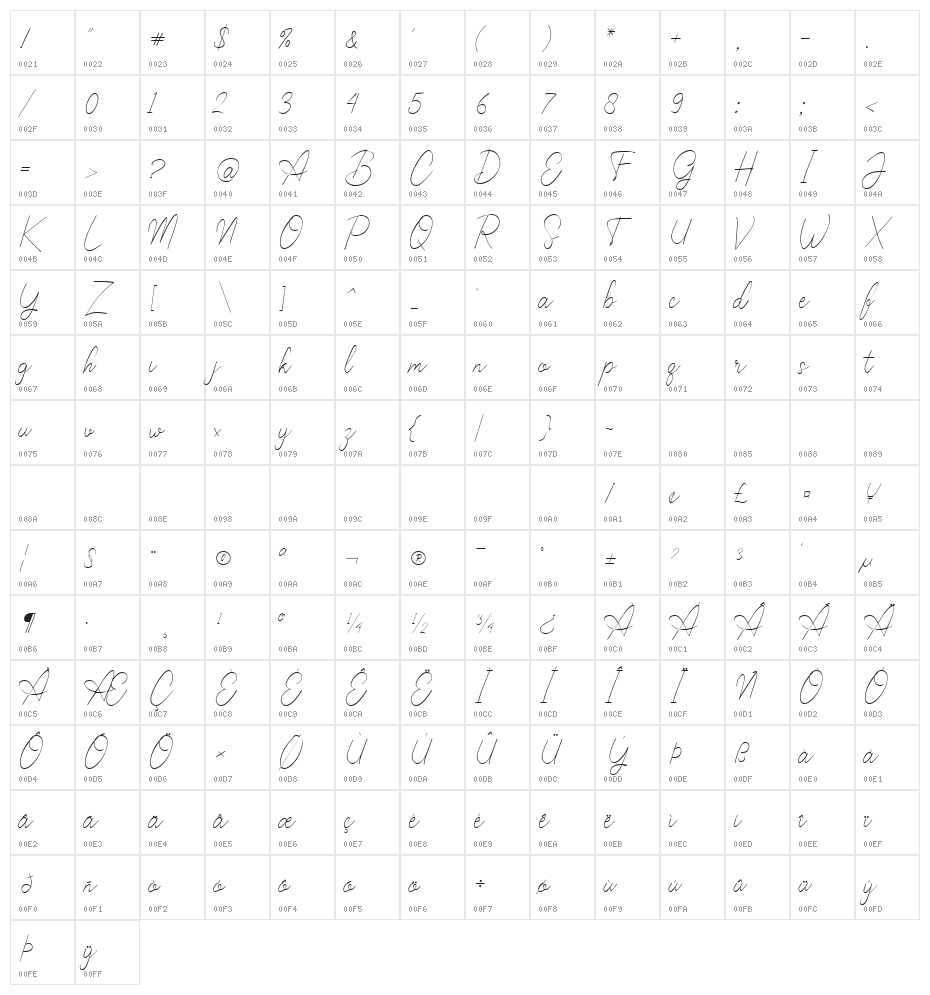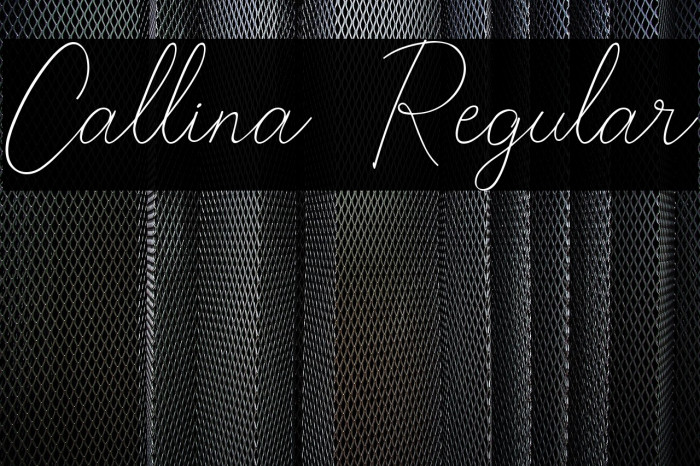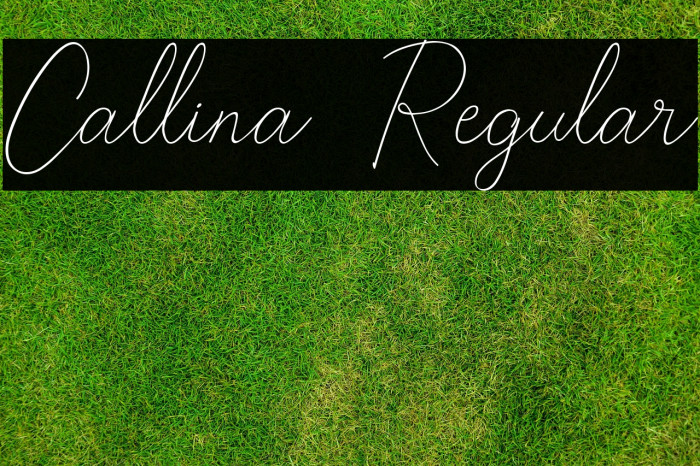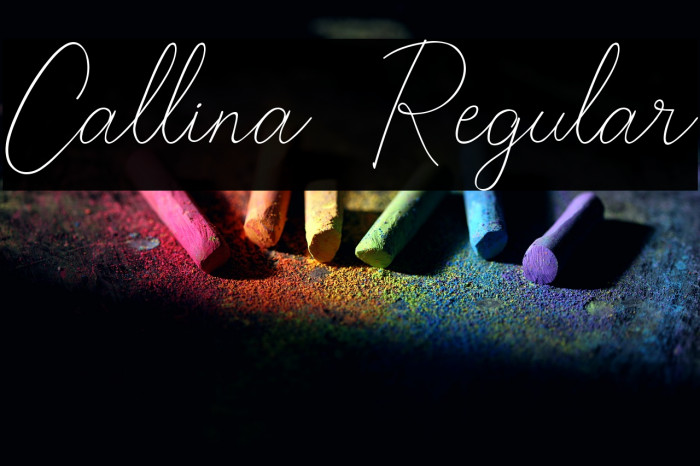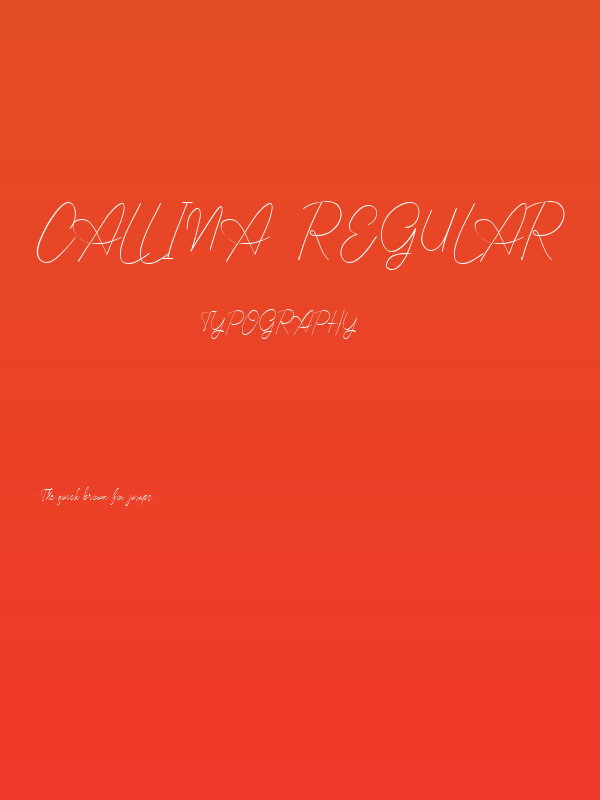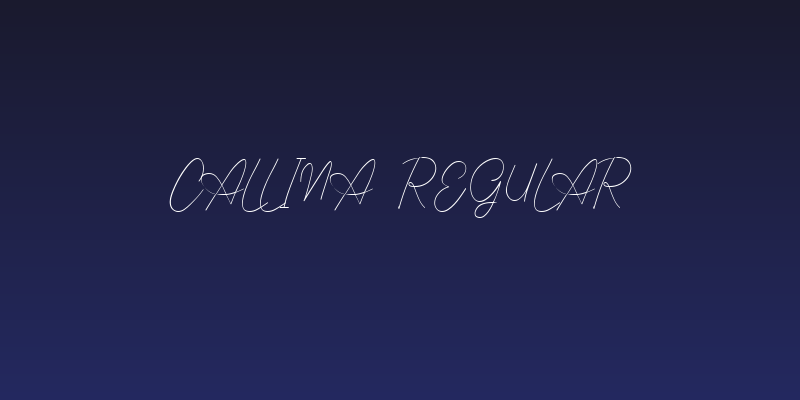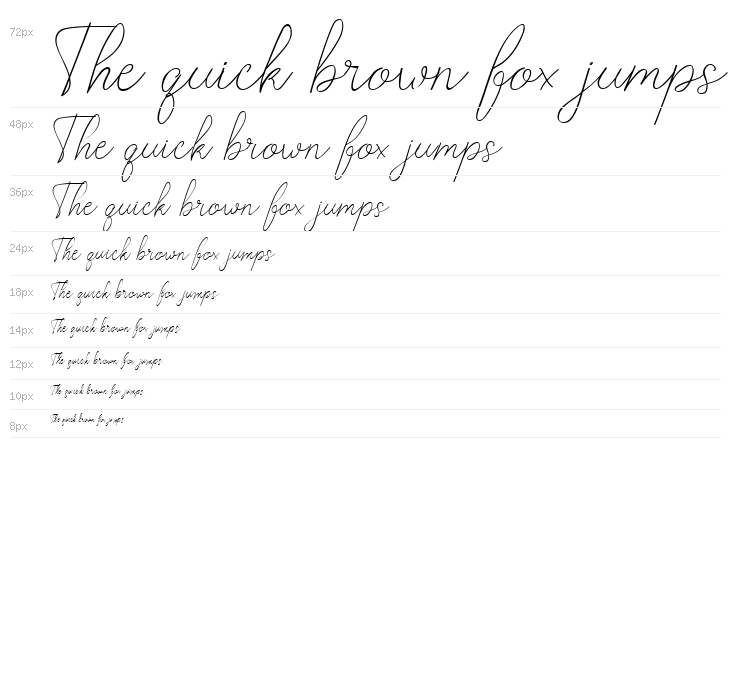
Callina Regular Font
Callina Regular Description
This elegant script font features a flowing, cursive style with smooth, continuous strokes that mimic the fluidity of handwriting. The uppercase letters are tall and graceful, while the lowercase letters maintain a consistent slant, adding to the overall sophistication. The numerals and special characters are designed with the same attention to detail, ensuring a cohesive look across all text. The font's thin lines and delicate curves make it ideal for projects that require a touch of elegance and refinement.
| Overall Style | Elegant |
| Use Case | Logos, Invitations, Personal stationery |
| Proposed Projects | Ideal for wedding invitations, elegant branding, personal stationery, and artistic projects requiring a sophisticated touch. |